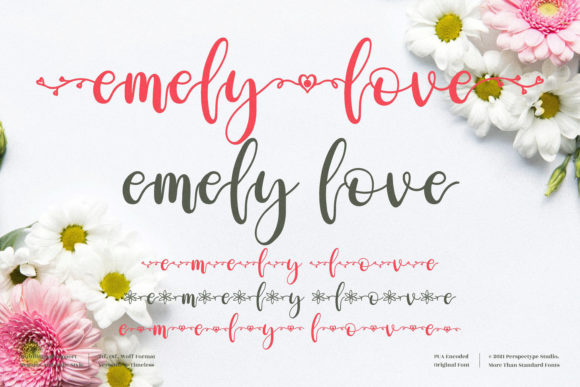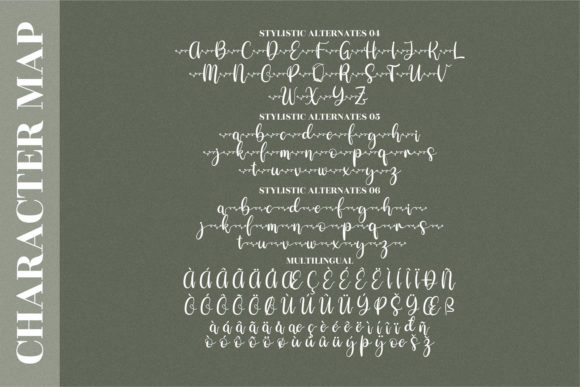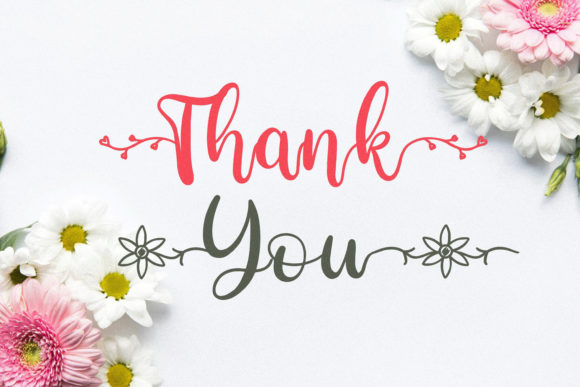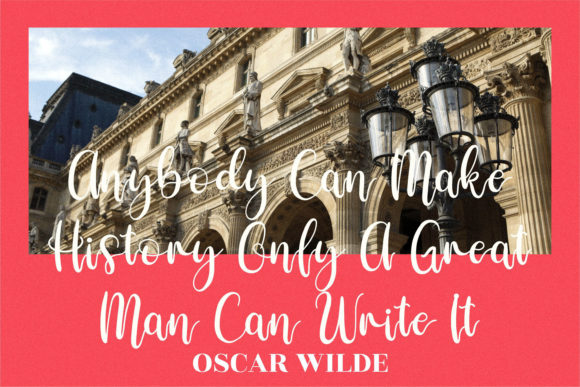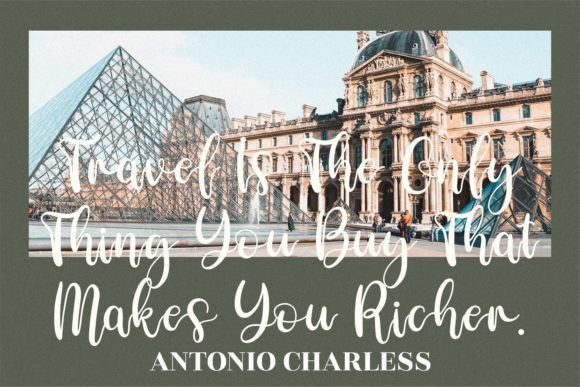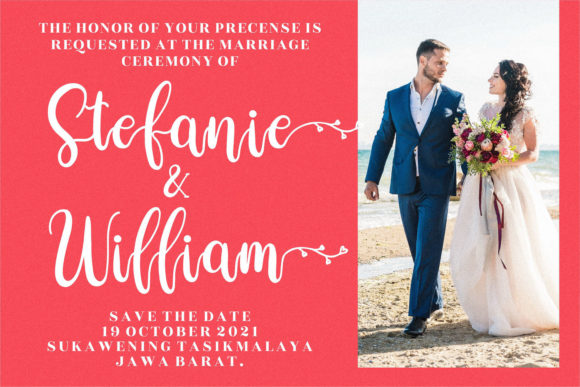
Emely Love Font
About Emely Love Font
Emely Love is a delicate and elegant handwritten font. Its distinct and well balanced letters make this font a masterpiece. Emely Love is PUA encoded which means you can access all of the glyphs and swashes with ease!